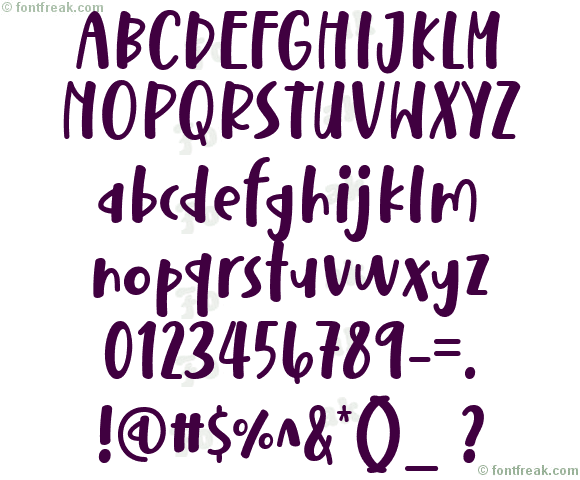
Nathals
About Nathals
Nathals, designed by Situjuh Nazara in 2018, is a captivating display font that seamlessly combines a modern aesthetic with a playful spirit. This sans-serif typeface features a unique visual style characterized by rounded, smooth strokes that provide an inviting and friendly appearance. The stroke weight is consistent, offering a clean look without overwhelming the viewer, while the generous spacing between letters enhances readability and adds a touch of elegance. Decorative elements are minimal yet effective, allowing the font to stand out without being overly ornate.
The Nathals font is incredibly versatile, making it suitable for a variety of design projects. It works beautifully for wedding invitations, where its charming style can add a personal touch to the celebration. Additionally, it shines in restaurant menus, providing a contemporary feel that can make the dining experience more delightful. Movie posters also benefit from its bold and engaging presence, capturing attention in a crowded visual landscape. Furthermore, Nathals is ideal for branding materials, giving small business owners a unique identity that resonates with their audience.
The target audience for this font includes graphic designers, small business owners, and content creators who seek a distinctive typeface that enhances their projects. Whether you’re crafting a logo or designing promotional materials, Nathals offers the flexibility and character needed to make a lasting impression.